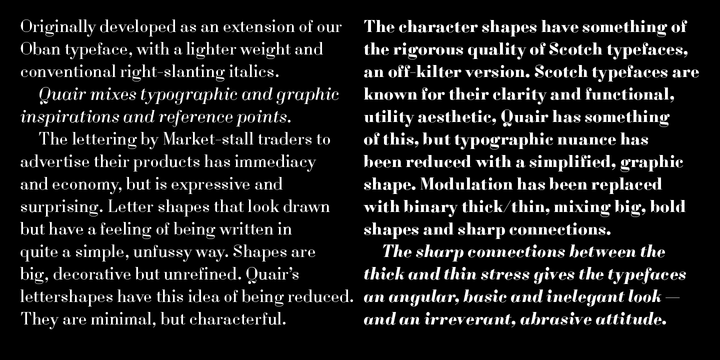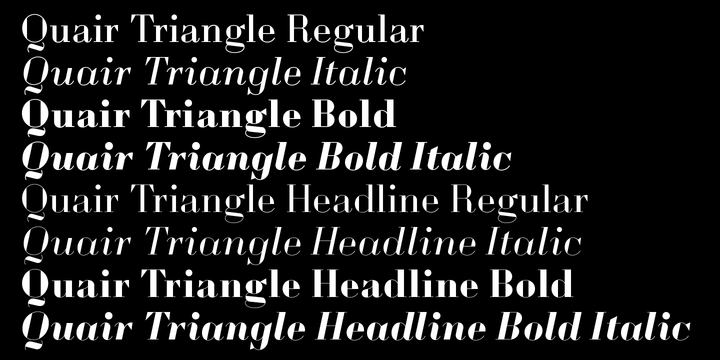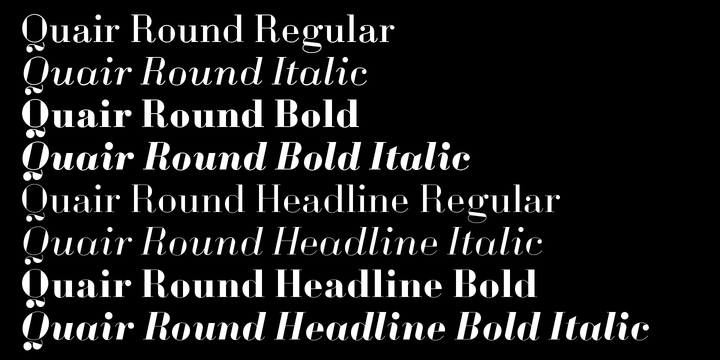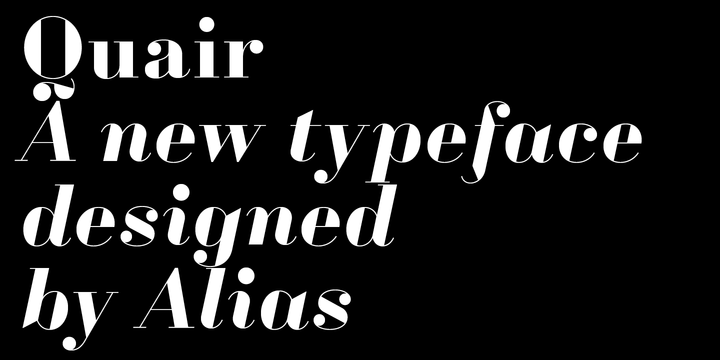
The typeface that became Quair was originally planned as an extension of our Oban typeface.
As it developed it became different enough to be a stand-alone, but connected typeface.
Quair mixes typographic and graphic reference points, most notably from market-stall trader lettering and from Thorowgood and Scotch nineteenth-century typefaces.
Quair isnt an updating or redrawing of these. It adds different ideas to make a distinctive, separate-looking typeface. More The lettering by Market stall traders to advertise their products has immediacy and economy, but is expressive and surprising.
Letter shapes that look drawn but have a feeling of being written in quite a simple, unfussy way.
Shapes are big, decorative but unrefined, Quairs lettershapes have this idea of being reduced.
They are minimal, in that they lack subtlety, but are characterful and individual.
Round and Triangle serif options highlight this idea of the letters as graphic shapes, and offer a difference in emphasis between curvy and angular.
Like Oban, Quair takes inspiration from the Thorowgood, nineteenth century headline typefaces.
These have striking and idiosyncratic drawing, with exuberent, bold letter shapes.
As with the market trader lettering their character and individuality is expressed through an economy of drawing, and the impact of the high contrast between thick and thin.
Quairs character shapes have something of the sparse, rigorous quality of Scotch typefaces.
Scotch typefaces are known for their utility aesthetic. Quair has something of this, but typographic nuance has been reduced with a simplified, graphic shape.
Modulation has been replaced with binary thick/thin. An angular, basic and inelegant look, but functional and useable.
As it developed it became different enough to be a stand-alone, but connected typeface.
Quair mixes typographic and graphic reference points, most notably from market-stall trader lettering and from Thorowgood and Scotch nineteenth-century typefaces.
Quair isnt an updating or redrawing of these. It adds different ideas to make a distinctive, separate-looking typeface. More The lettering by Market stall traders to advertise their products has immediacy and economy, but is expressive and surprising.
Letter shapes that look drawn but have a feeling of being written in quite a simple, unfussy way.
Shapes are big, decorative but unrefined, Quairs lettershapes have this idea of being reduced.
They are minimal, in that they lack subtlety, but are characterful and individual.
Round and Triangle serif options highlight this idea of the letters as graphic shapes, and offer a difference in emphasis between curvy and angular.
Like Oban, Quair takes inspiration from the Thorowgood, nineteenth century headline typefaces.
These have striking and idiosyncratic drawing, with exuberent, bold letter shapes.
As with the market trader lettering their character and individuality is expressed through an economy of drawing, and the impact of the high contrast between thick and thin.
Quairs character shapes have something of the sparse, rigorous quality of Scotch typefaces.
Scotch typefaces are known for their utility aesthetic. Quair has something of this, but typographic nuance has been reduced with a simplified, graphic shape.
Modulation has been replaced with binary thick/thin. An angular, basic and inelegant look, but functional and useable.